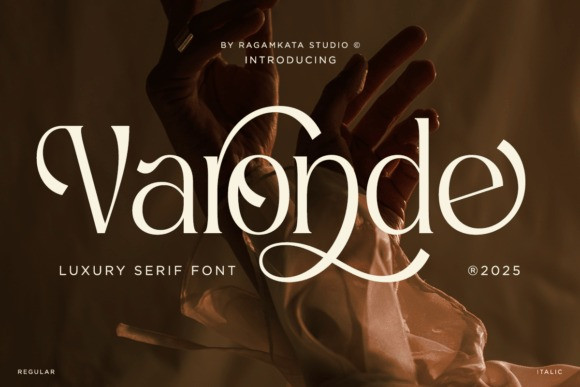
Varonde Font
Varonde Font is a luxury serif typeface featuring distinctive curves that bring an elegant, refined touch to any project.
Varonde is a dramatic and luxurious serif font that perfectly blends high-fashion sophistication with a captivating vintage flair, making it an icon of modern elegance.
This exquisite Varonde typeface is defined by its striking, exaggerated serifs and incredibly high contrast between thick and thin strokes, creating a hypnotic visual rhythm. The signature, sweeping swashes on key glyphs give the Varonde luxury serif font a unique, artistic touch, making it the ultimate choice for upscale fashion magazines, luxury brand identities, creative logos, and glamorous wedding stationery. Available in both Regular and Italic, the Varonde font is an expressive, unforgettable typeface designed to make a truly bold, artistic statement.
Packed with numerous stylistic alternates, it’s perfect for creating striking, memorable designs such as quotes, invitations, wordmark logos, branding, and more. It also includes star elements to make your visuals shine even brighter.